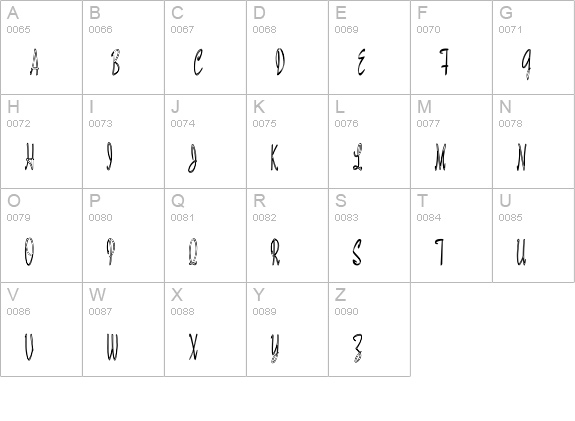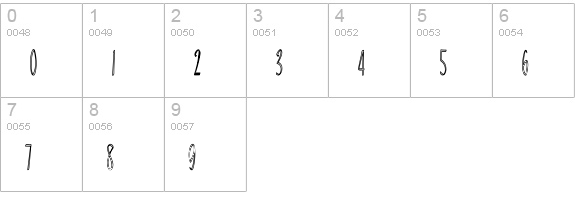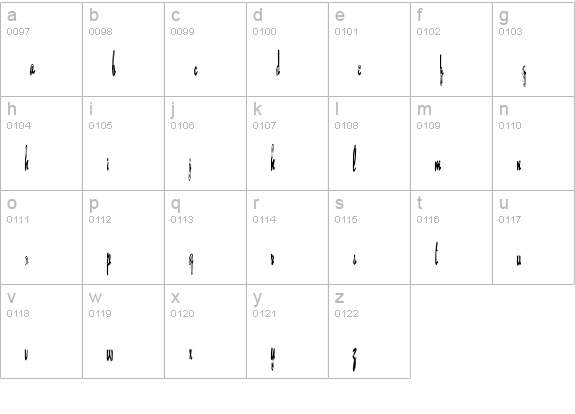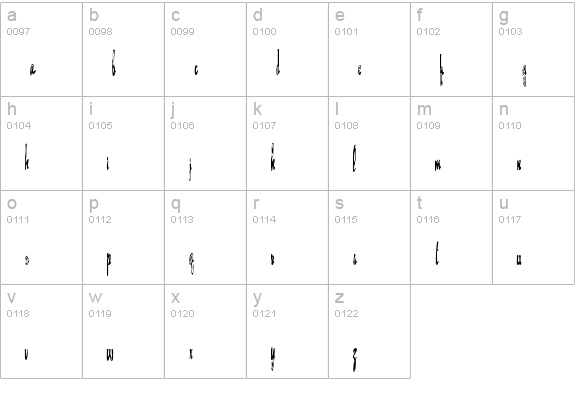
MaidstoneScriptHC Font Details
MaidstoneScriptHC is a beautifully designed font that exudes elegance and sophistication. Its flowing, cursive style adds a touch of charm to any design project. This font is perfect for creating stunning wedding invitations, stylish logos, and captivating advertisements. With its unique combination of graceful curves and refined detailing, MaidstoneScriptHC stands out from the crowd. Its versatility allows it to be used in a variety of contexts, from formal events to creative branding. Whether you're designing for print or digital, this font will elevate your work to new heights. What's even better is that MaidstoneScriptHC is completely free! Yes, you read that right. This font is freely available to download at FontsMarket.com. Now you can enhance your projects without breaking the bank. Say goodbye to expensive fonts and hello to high-quality design resources at no cost. Downloading MaidstoneScriptHC is a breeze. Simply head over to FontsMarket.com, search for MaidstoneScriptHC, and click the download button. Within seconds, you'll have this stunning font ready to use in your creative endeavors. So why wait? Start incorporating the beauty and elegance of MaidstoneScriptHC into your designs today. Download this free font from FontsMarket.com and let your creativity soar.